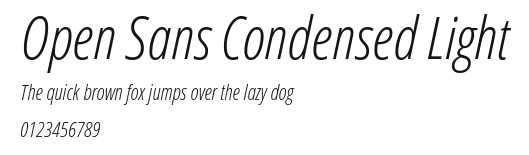
Open Sans Condensed Light Preview
• Font Name: Open Sans Condensed Light
• Full Font Name: Open Sans Condensed Light Italic
About Open Sans Condensed Light.ttf
Open Sans Condensed Light.ttf is a modern, elegant sans-serif font designed for ultimate readability and visual harmony. Perfect for branding, headlines, web design, and print materials.